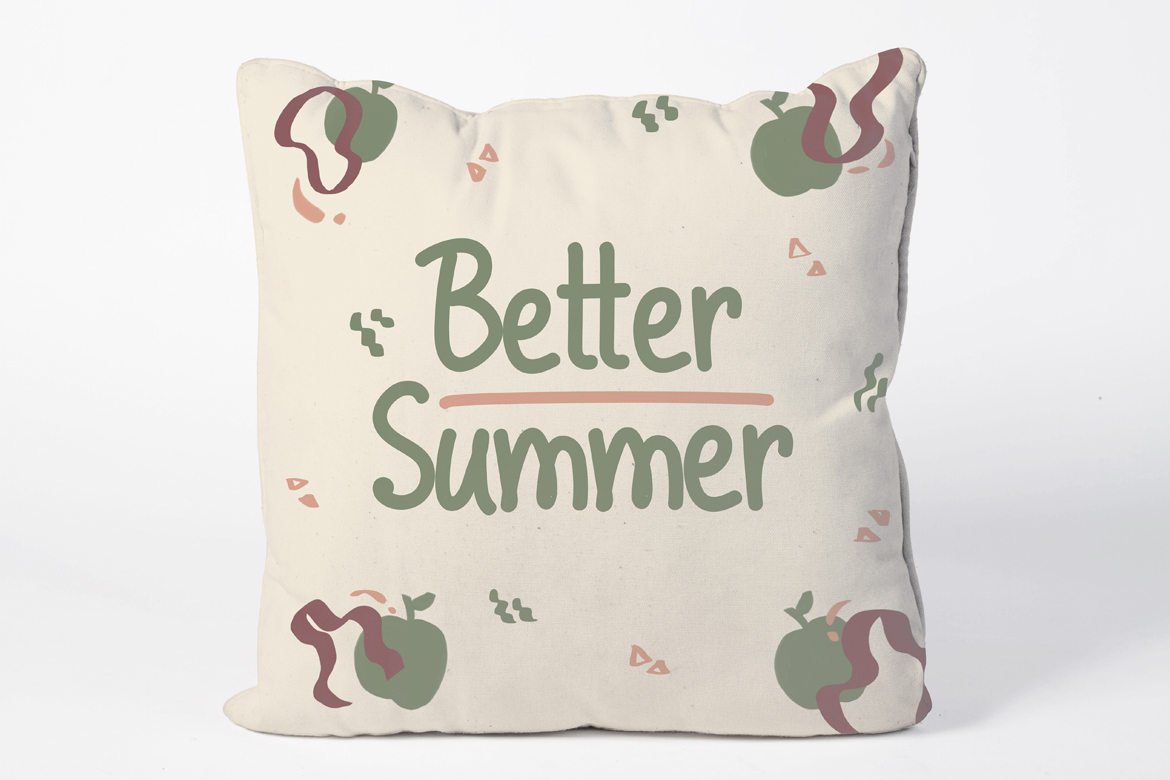
Life of Apples is a Fun Handwriting typeface, perfectly suitable for creating quotes, kids book, lifestyle design such as logos, title, magazine, and more.